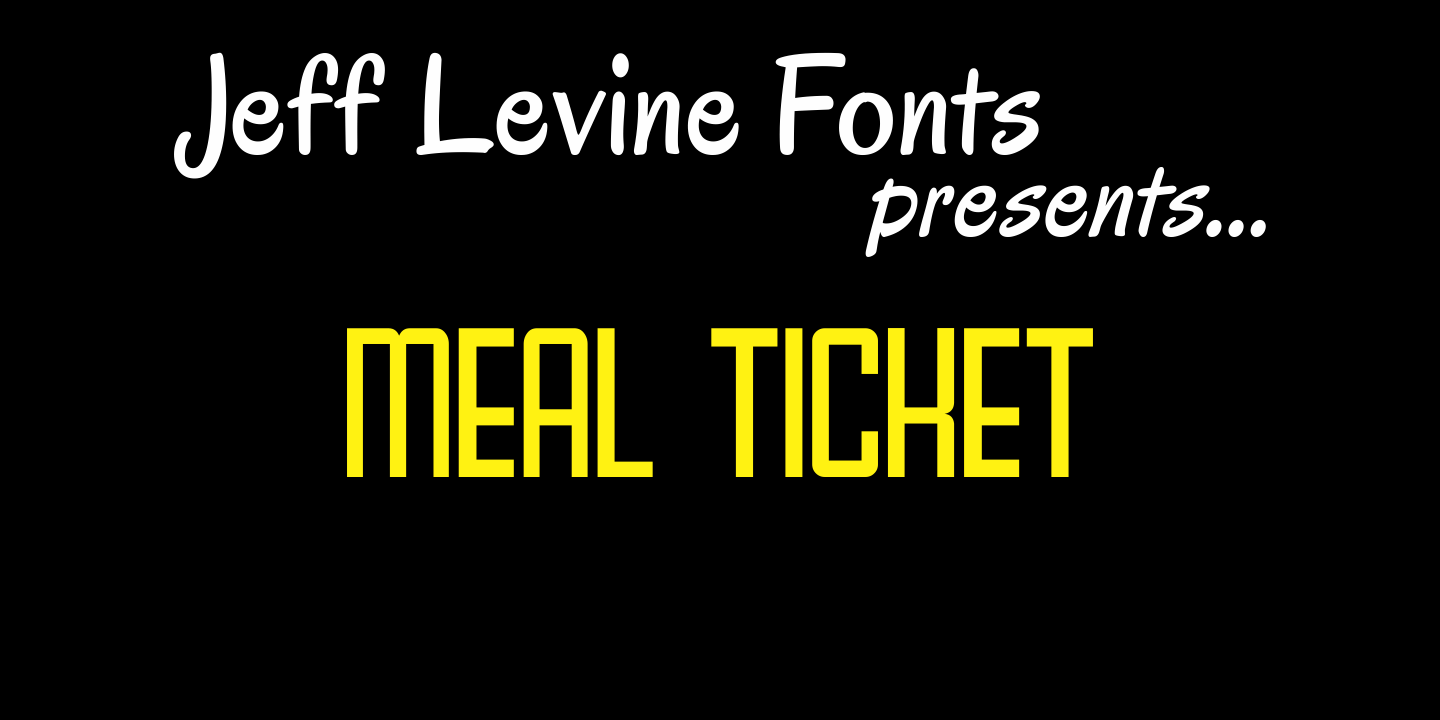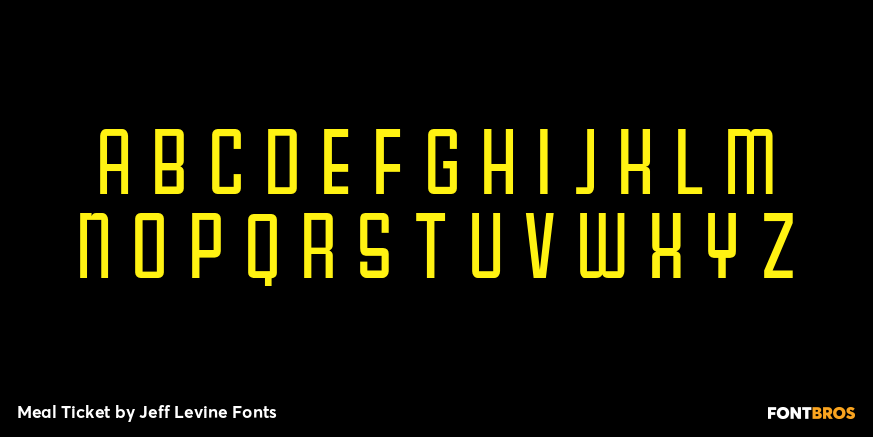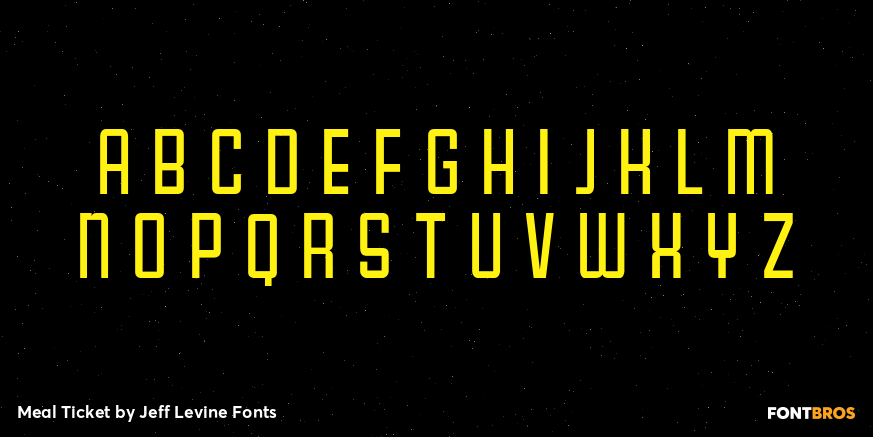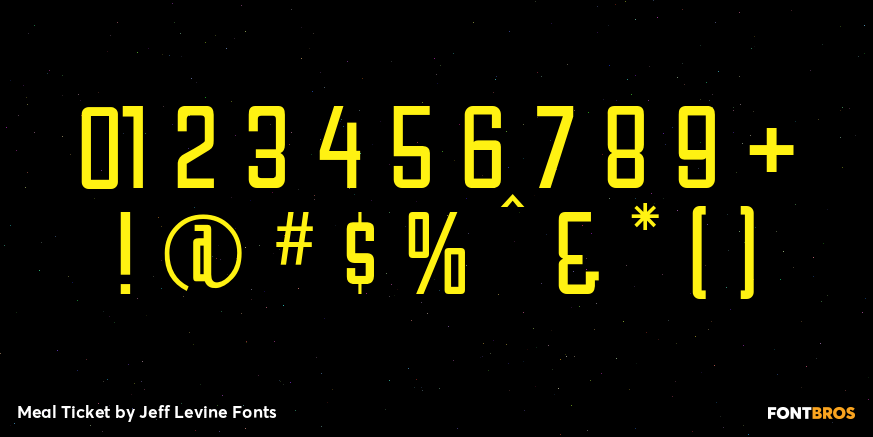
Meal Ticket
Meal Ticket JNL follows the same basic letter shapes as Jeff Levine's Flatbush Beanery JNL, but with a much lighter look and feel.
This is another perfect typeface for recreating the sign lettering and menus of old-time diners, drive-ins and restaurants.